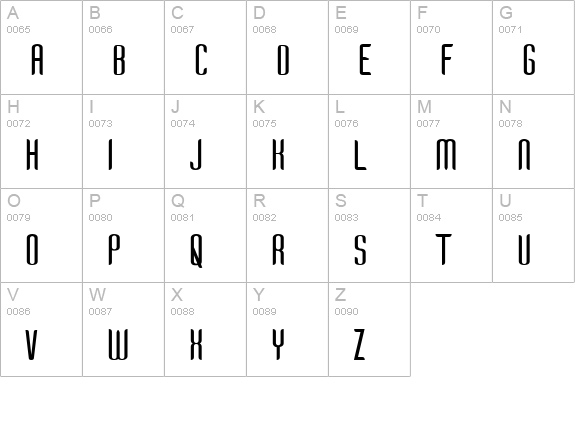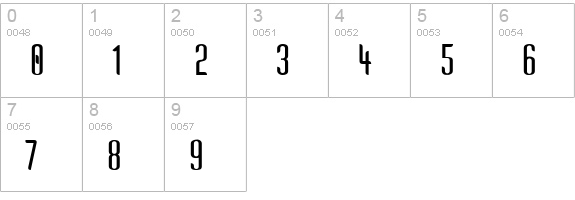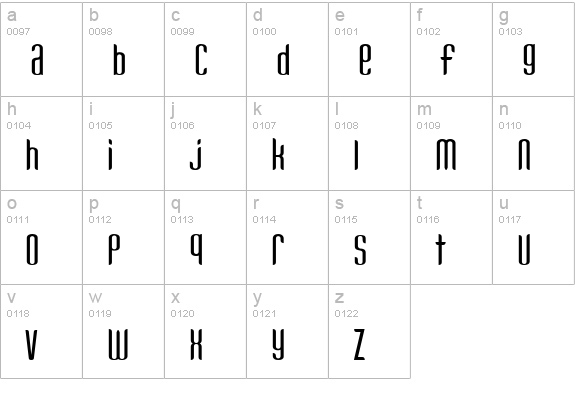
Kandide Unicase font is a unique and versatile typeface that combines modern elegance with a touch of whimsy. Its clean lines and rounded edges make it perfect for a wide range of design projects, from branding to editorial layouts. The unicase design gives it a playful and distinctive look, while still maintaining a sense of sophistication. One of the best features of Kandide Unicase font is that it is completely free to download. You can easily access this stylish typeface at FontsMarket.com and start using it in your creations right away. With its extensive character set and multiple weights, Kandide Unicase font offers endless possibilities for creative expression. Whether you're working on a logo, website, or print design, this font is sure to add a touch of charm and personality to your projects. Download Kandide Unicase font today and elevate your designs to the next level!